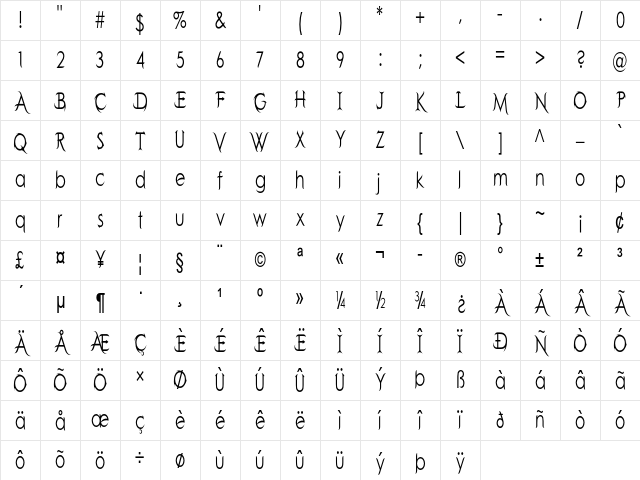
Poxum Condensed Regular
Style: Condensed Regular
Poxum Condensed Regular
Design Context for Poxum
Poxum is a composed and adaptable typeface that performs quietly and consistently across a wide range of design contexts. Its narrow stance lets it pack a punch even in space-constrained designs.
Pro Tip: Use Poxum in both headline and body roles to test its range before committing to a single application.